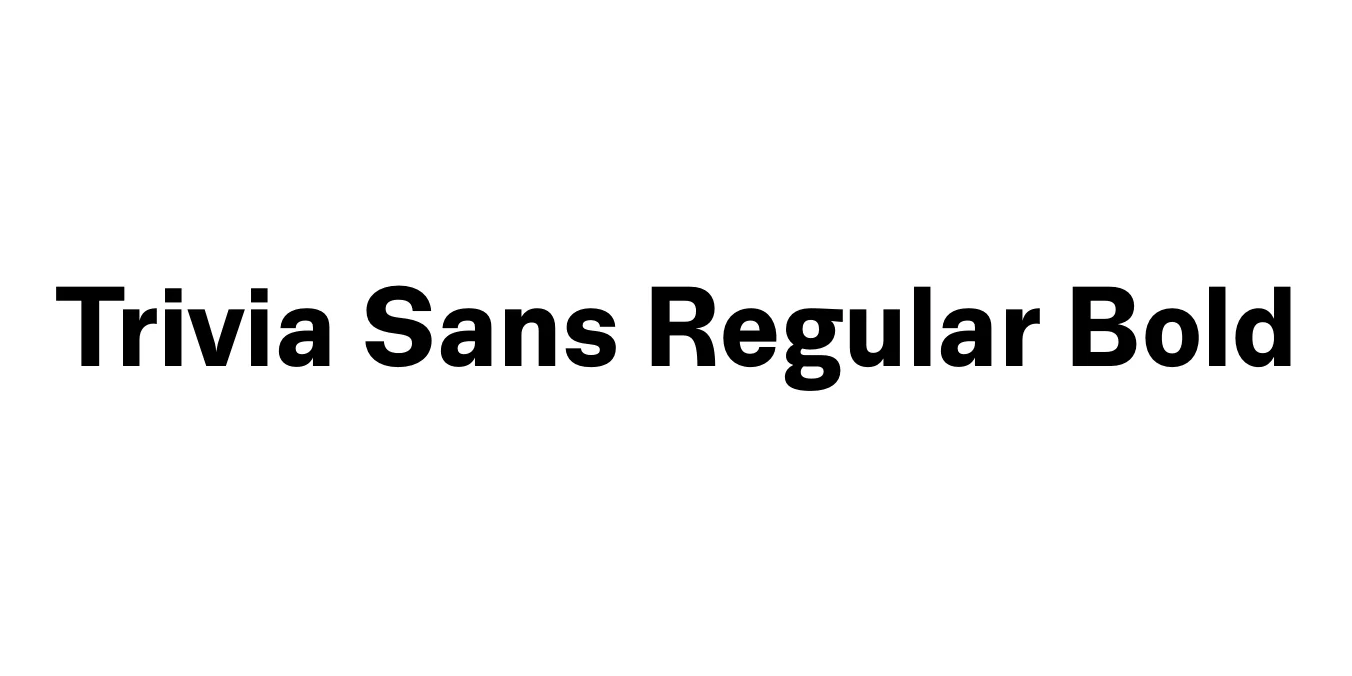
Trivia Sans Regular Bold
Designed by František Štorm
Trivia Sans Regular Bold is a sophisticated member of the expansive Trivia superfamily, meticulously crafted by the renowned Czech typographer František Štorm through Storm Type Foundry. This typeface was designed as a modern, functional alternative to mid-century grotesques, offering a cleaner and more versatile aesthetic that bridges the gap between classic technical precision and contemporary warmth.
The Regular Bold weight is specifically engineered for high-impact communication, featuring robust strokes and carefully balanced counters that maintain exceptional legibility in both print and digital environments. Its structural integrity makes it a favorite among professional designers for complex editorial systems and large-scale corporate identities where clarity and a professional tone are paramount.
Trivia Sans Regular Bold Best Uses
Ideal for creating strong, authoritative logos and brand identities.
Excellent for impactful headlines and subheadings in magazines or books.
Perfect for bold user interface elements and clear navigation menus.
Highly effective for outdoor signage and promotional posters.